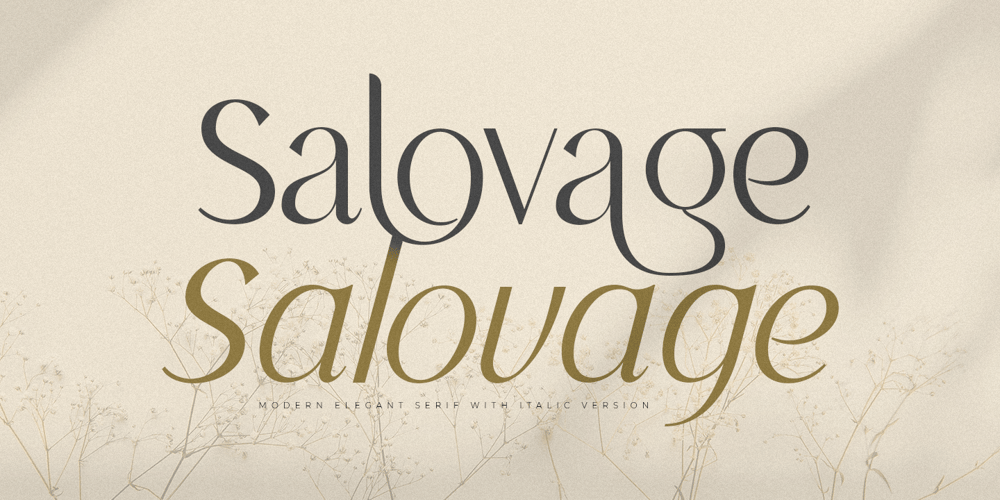
Salovage
Salovage font
Salovage Font Family was designed by Zamroni Hamzah and published by Sensatype Studio. Salovage contains 2 styles and family package options. An Elegant Serif font that we created special for elegant branding needs, with extra ligatures in unique shape will be ready to add value of your brand. It so nice to leverage designer or product owner that need solutions to make their design look more classy and modern. And specially for this font, We prepared any ligatures characters to help you create unlimited variations for your creative needs.Salovage serif font ready with: Any options to get creative with italic version and any variations (combination of Ligatures) Preview as a inspirations that you can do with Salovage font Ready with Lowercase and Uppercase characters Wish you enjoy our font. 🙂